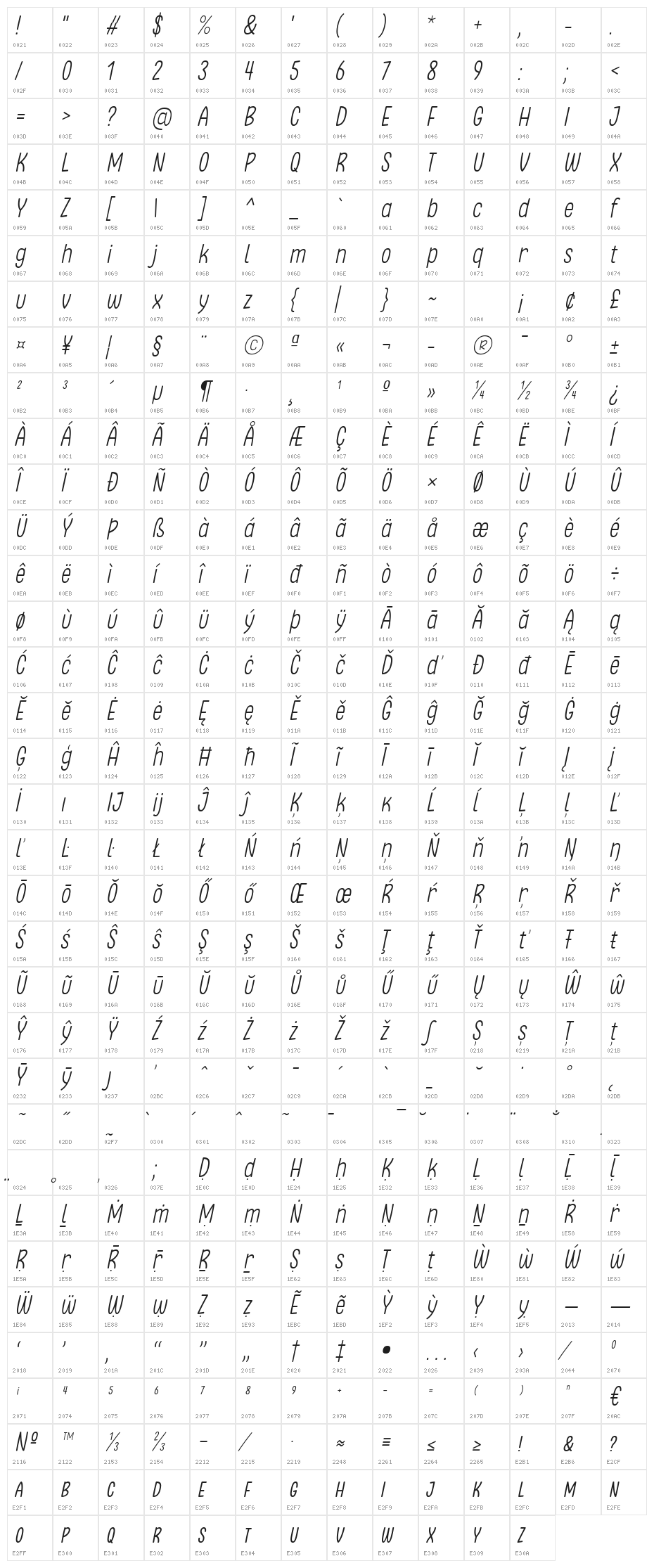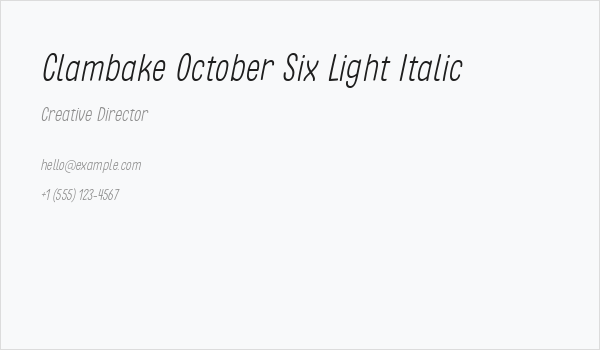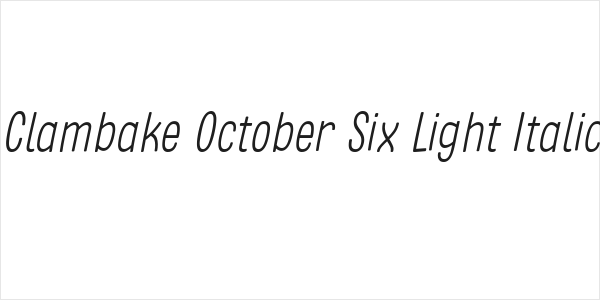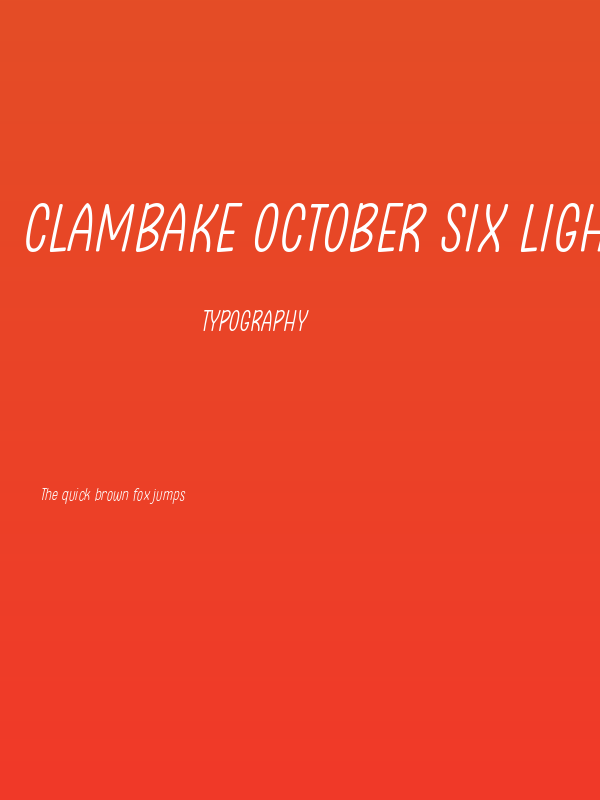
Clambake October Six Light Italic Font
Clambake October Six Light Italic Description
This font features a light and elegant italic style with a handwritten touch. The letters are slightly slanted, giving it a dynamic and fluid appearance. The strokes are consistent in weight, contributing to a harmonious and balanced look. The characters are well-spaced, ensuring readability while maintaining a stylish flair. The font includes a full set of uppercase and lowercase letters, numerals, and a variety of special characters, making it versatile for different design needs.
| Overall Style | Elegant, Handwritten |
| Use Case | Invitations, Personal branding, Elegant designs |
| Proposed Projects | Ideal for wedding invitations, greeting cards, personal branding, and elegant product packaging. |